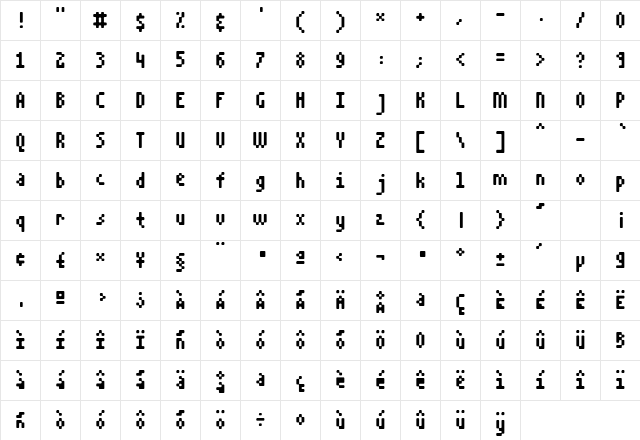
Lithium Regular Free Font
Lithium Regular
Design Context for Lithium
Lithium is a composed and adaptable typeface that performs quietly and consistently across a wide range of design contexts.